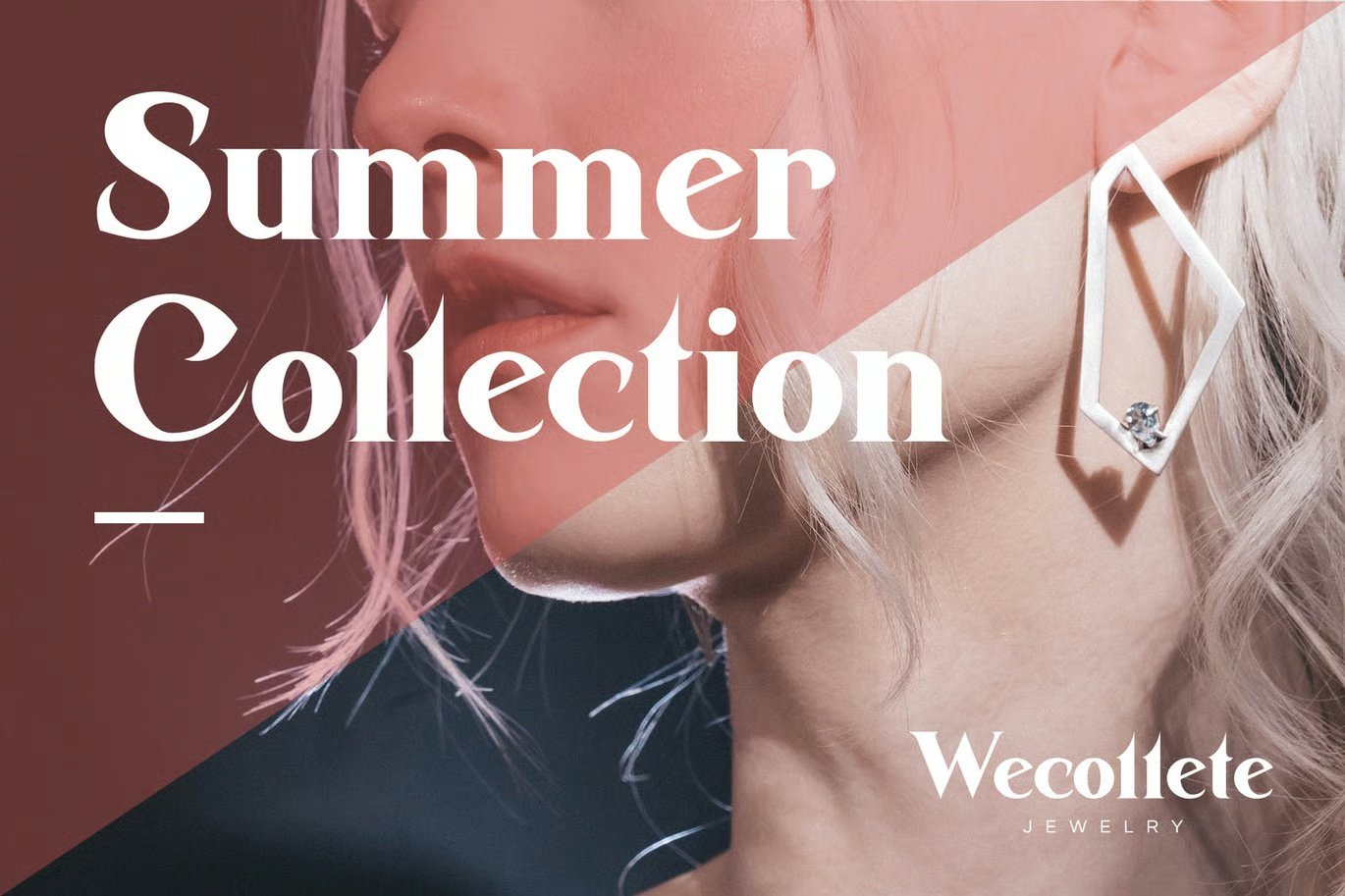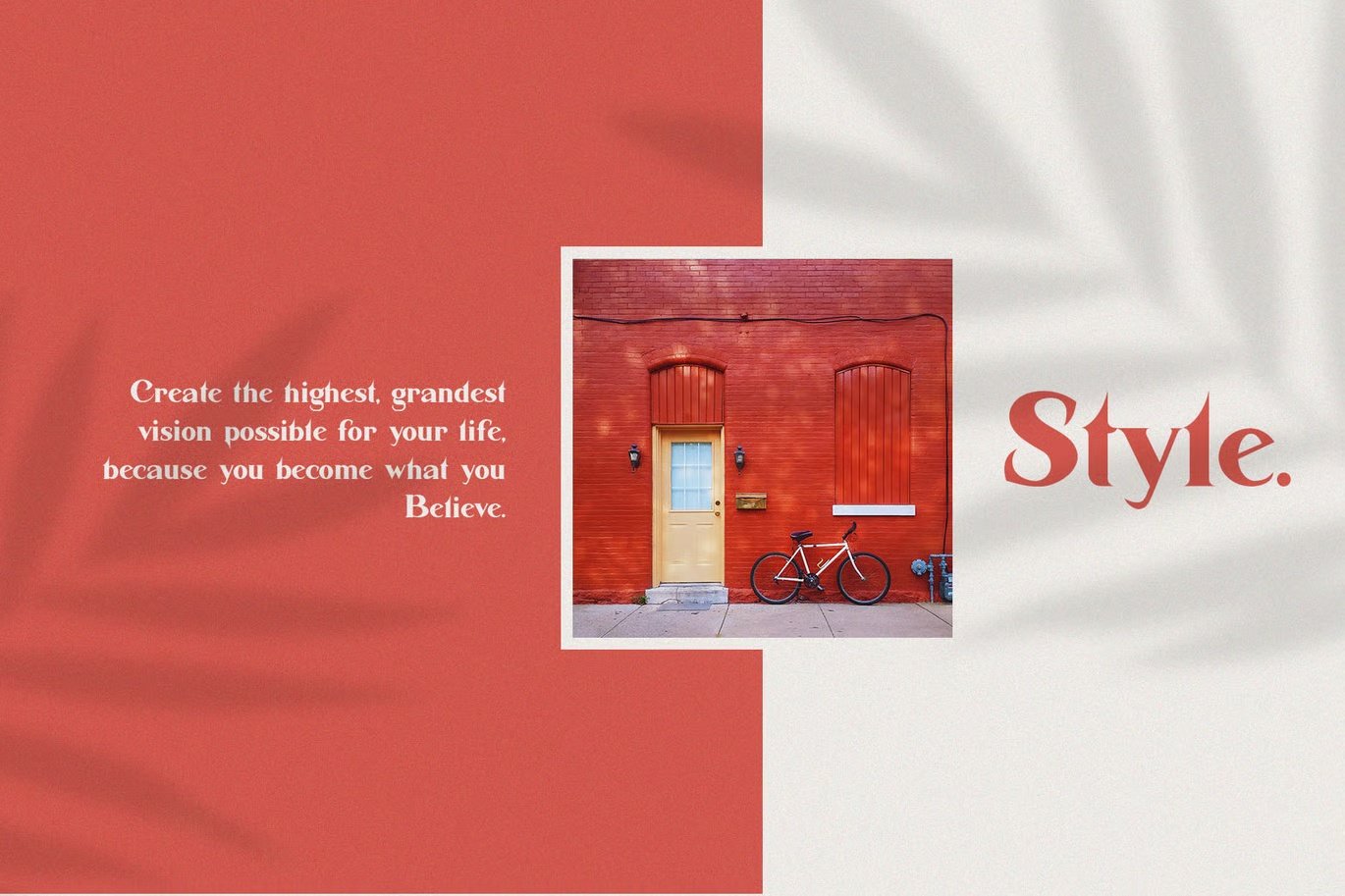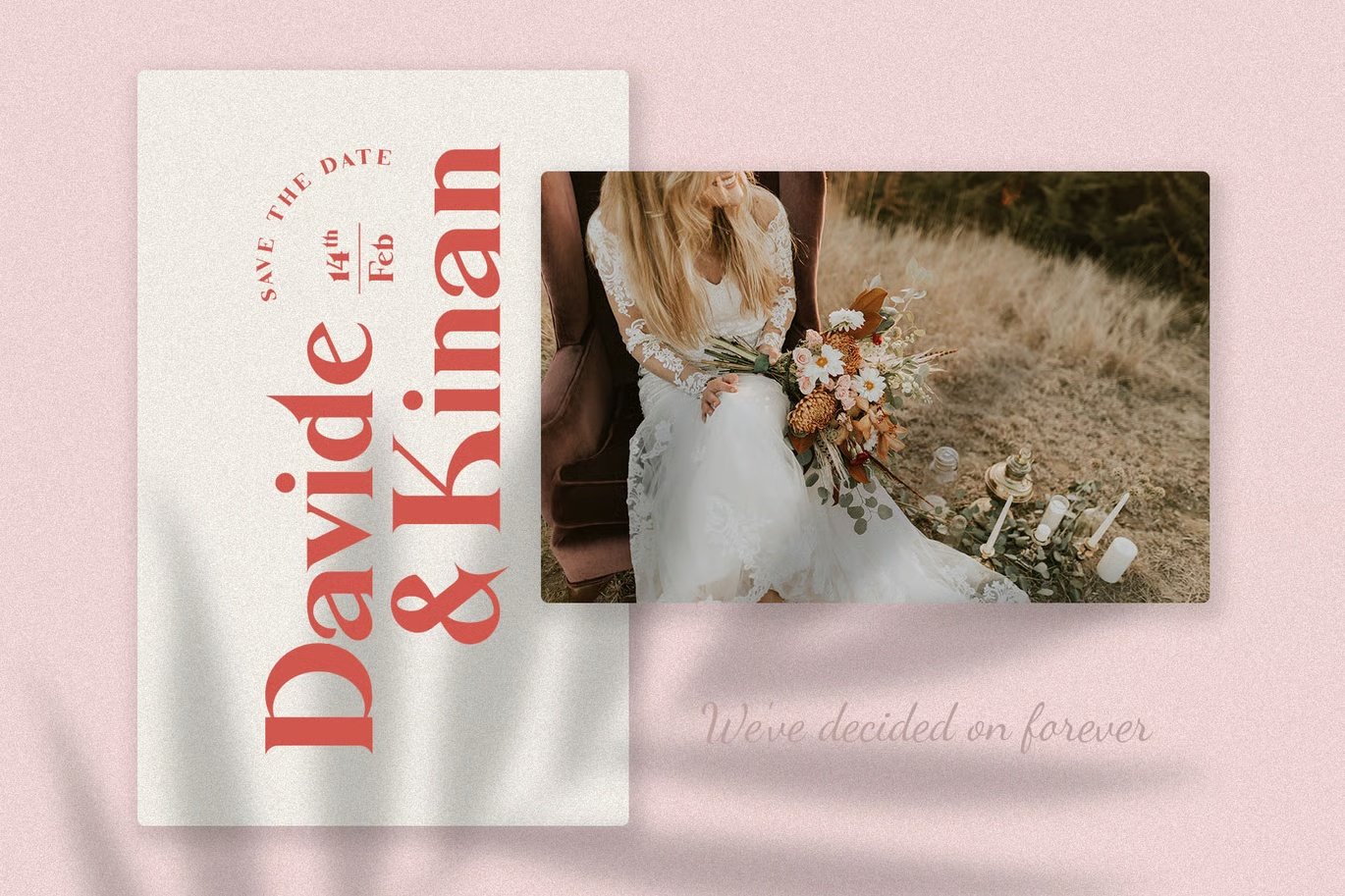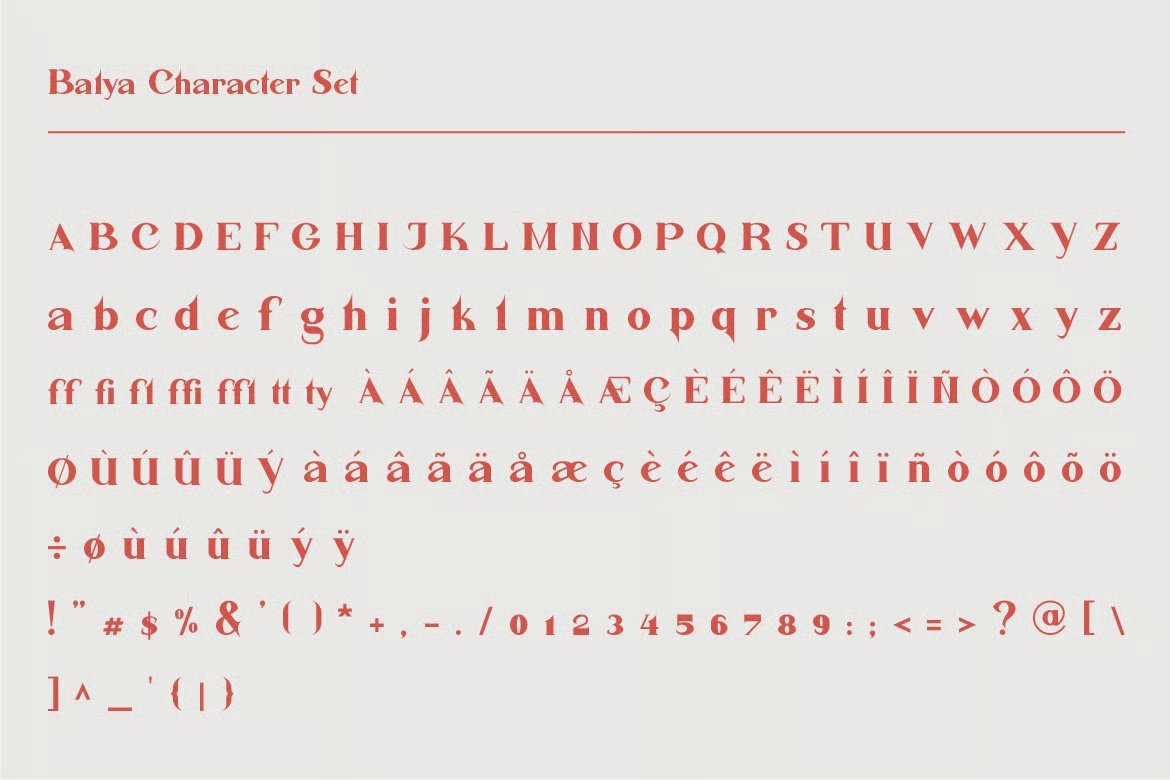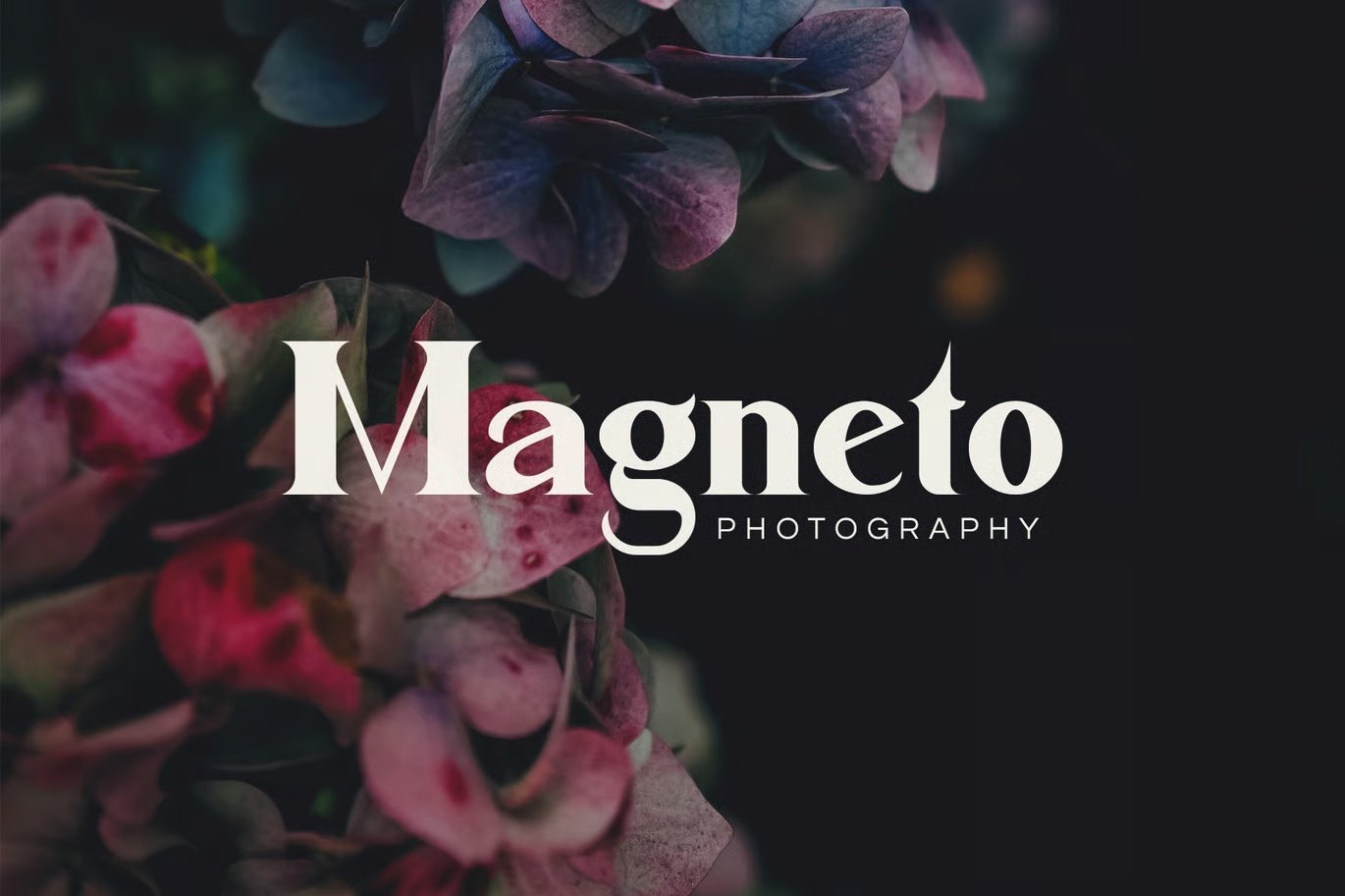
Balya Serif Font
Description
Balya serif font this is a serif type font, this font is suitable for use with premium, elegant, luxury needs. such as hotels, salons, restaurants, cafes and others. make everything beautiful and charming with Balya Font — FILES Included